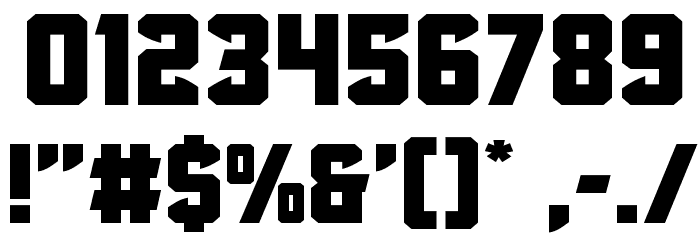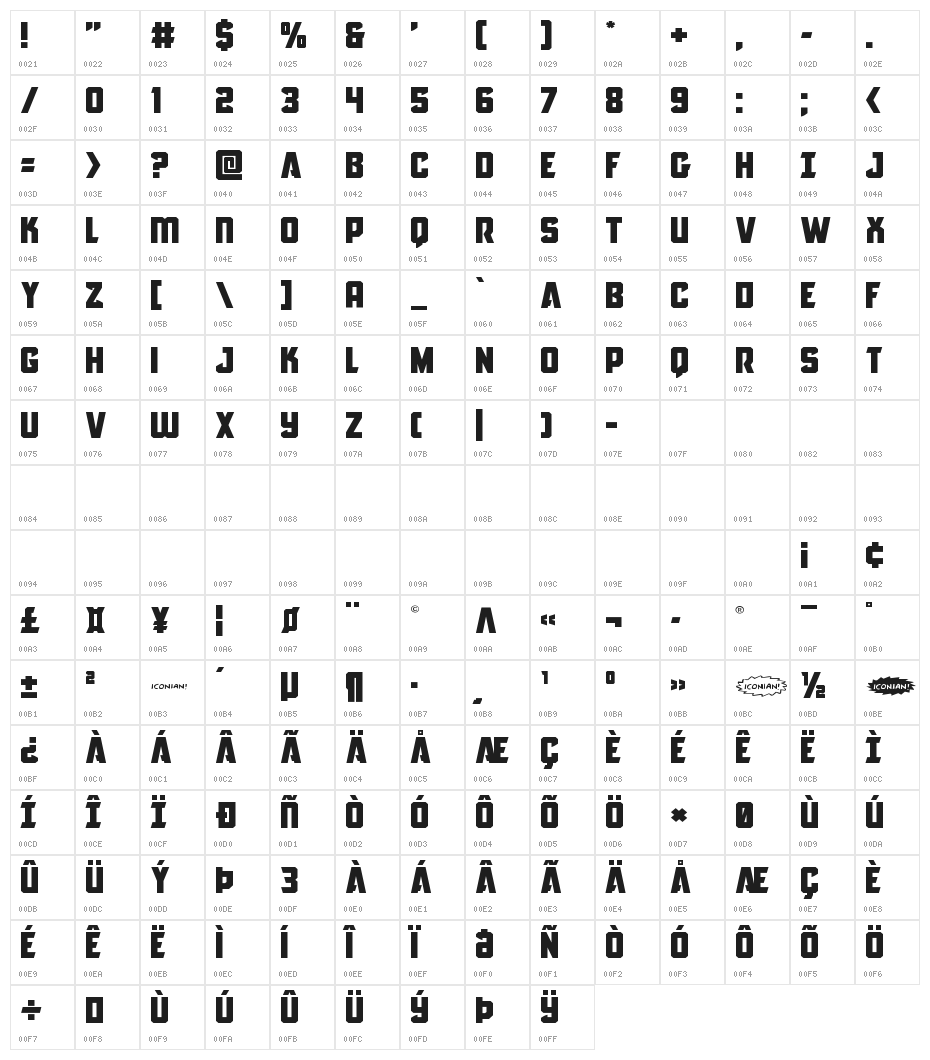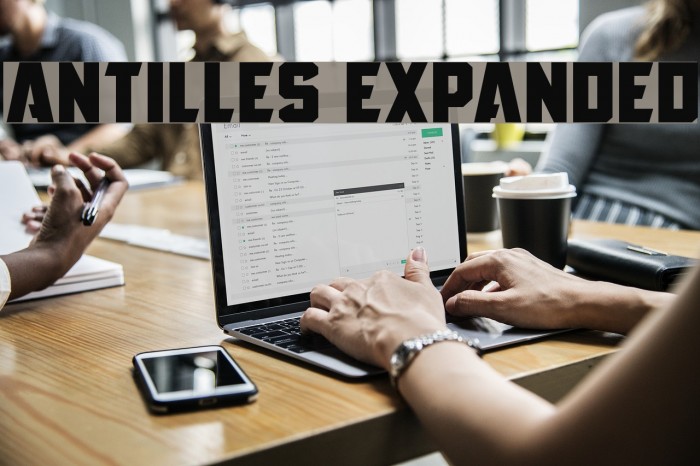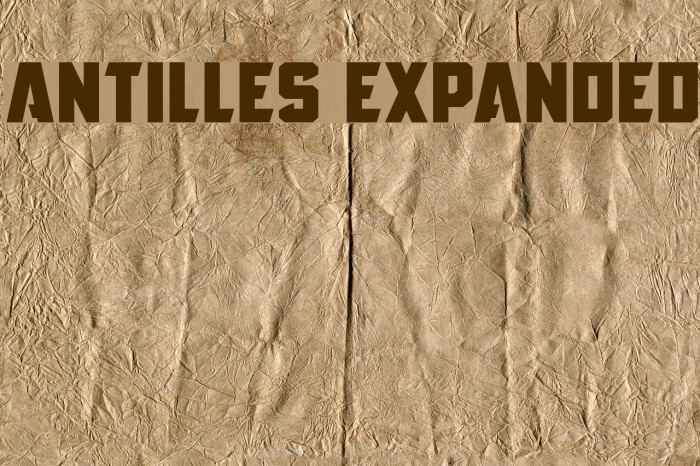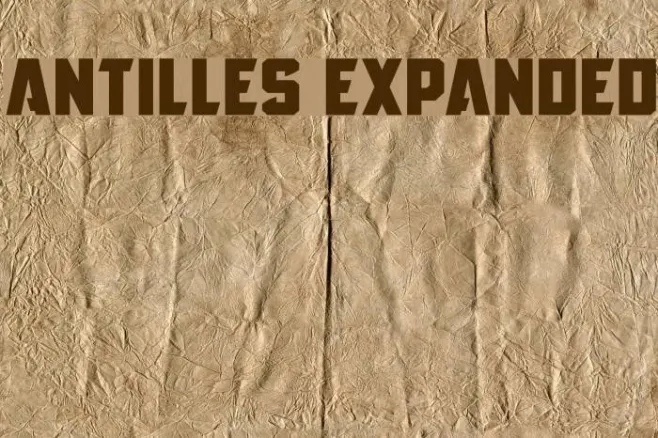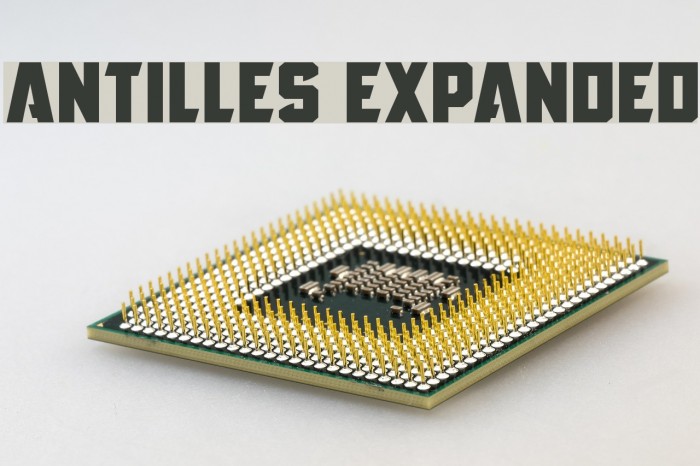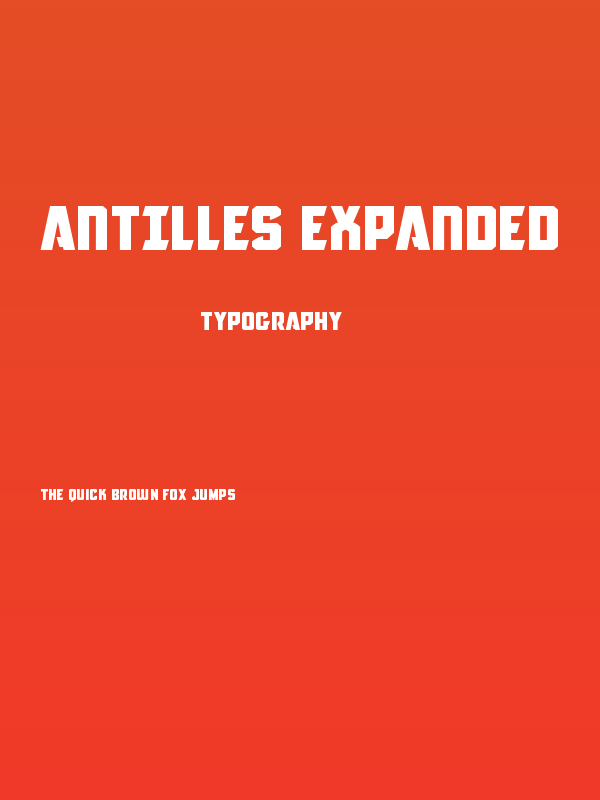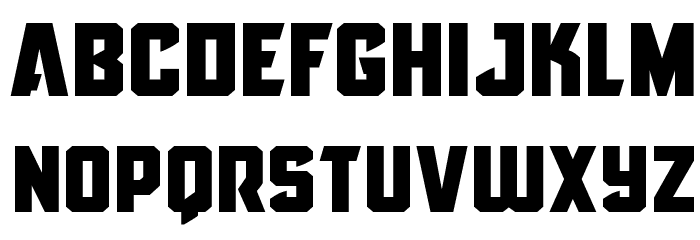
Antilles Expanded Font
Antilles Expanded Description
This font features a bold and striking design with a distinctly modern and geometric aesthetic. The characters are constructed with sharp angles and a blocky structure, giving it a strong presence. The uppercase letters are uniform in height, while the lowercase letters maintain a consistent style, enhancing readability. The numbers and special characters follow the same bold and angular design, ensuring cohesion across all elements. This font's expanded width and heavy weight make it ideal for attention-grabbing headlines and impactful designs.
Proposed ProjectsIdeal for posters, logos, branding, and any project requiring a bold, modern look.